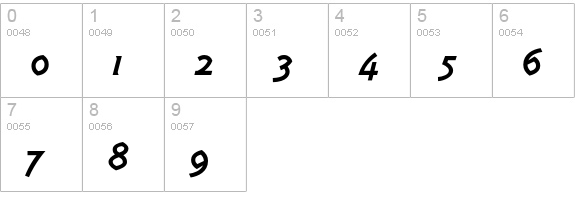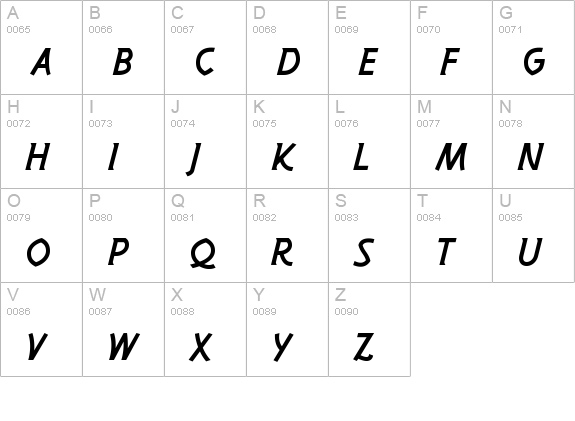
Karmen-Italic Font Details
Karmen-Italic is a distinctive, italic variant in the Karmen typeface family \xE2\x80\x94 well suited to design and typography projects.
Karmen-Italic font is a stunning typeface that exudes elegance and sophistication. With its delicate curves and graceful slant, this font is perfect for adding a touch of refinement to any design project. Whether you're creating invitations, logos, or social media graphics, Karmen-Italic font will elevate your work to new heights. But what sets Karmen-Italic font apart is not just its beauty, but also its accessibility. This font is available for free, making it an excellent choice for both personal and commercial use. Whether you're a professional designer or a hobbyist, you can enjoy the benefits of this exquisite font without breaking the bank. Downloading Karmen-Italic font is a breeze. Simply visit FontsMarket.com, where you can freely download this font and explore a vast collection of other high-quality fonts. FontsMarket.com provides a user-friendly platform that ensures a seamless and enjoyable experience for all font enthusiasts. So why wait? Enhance your designs with the timeless elegance of Karmen-Italic font. Download it for free at FontsMarket.com and let your creativity shine.